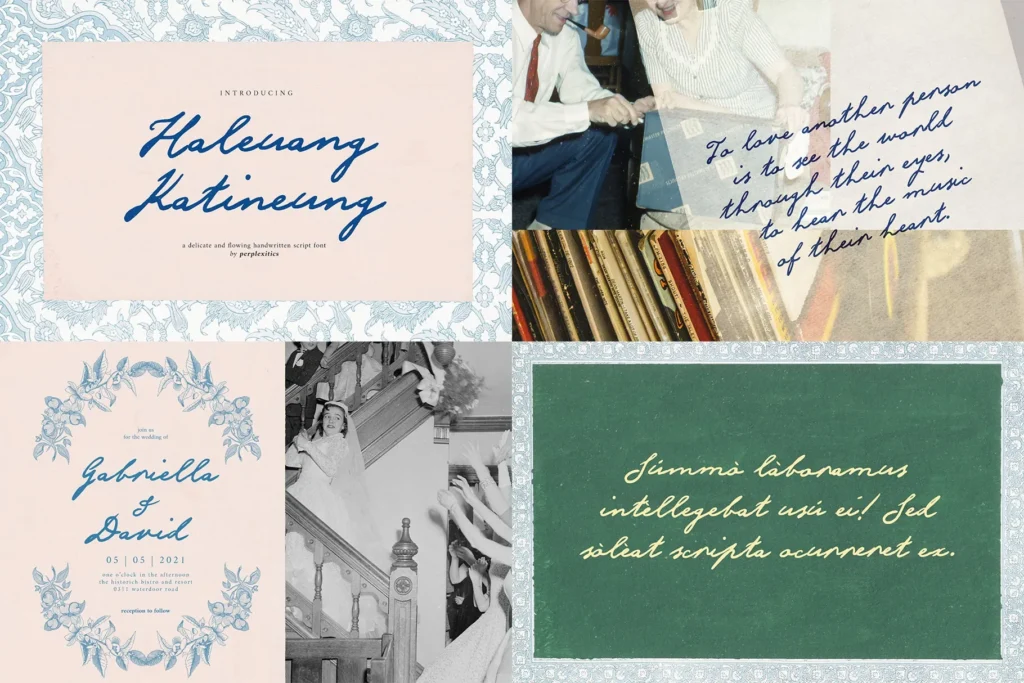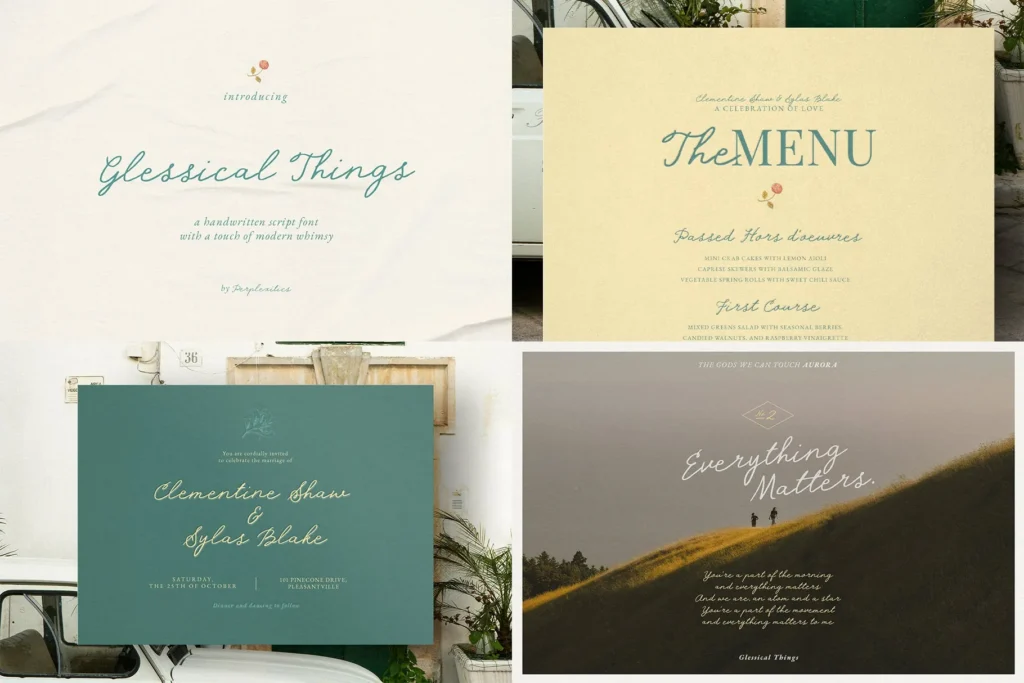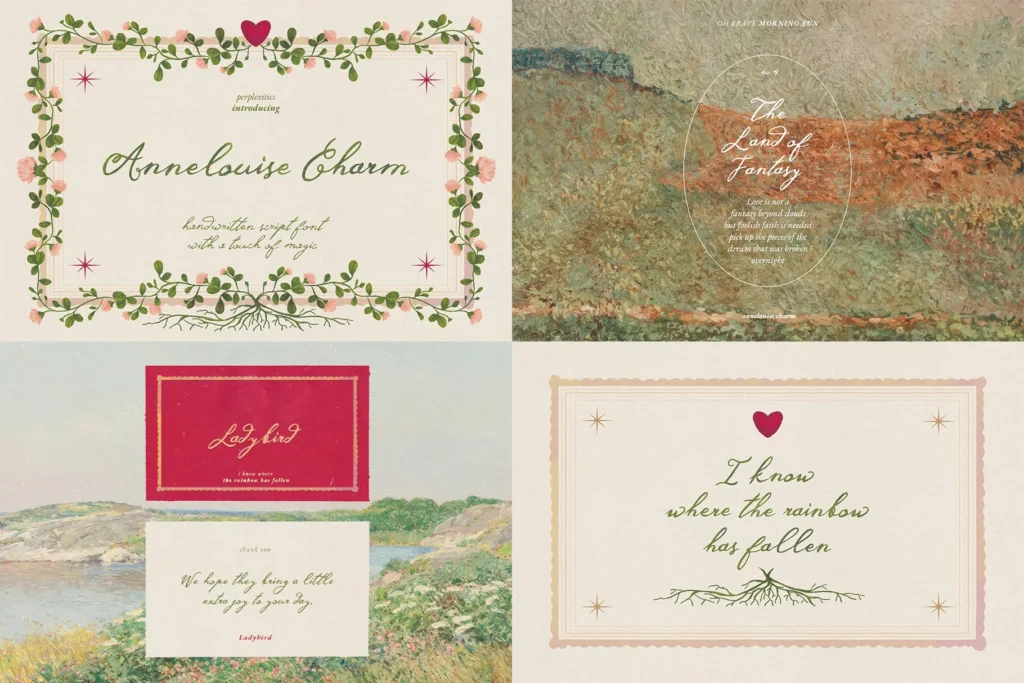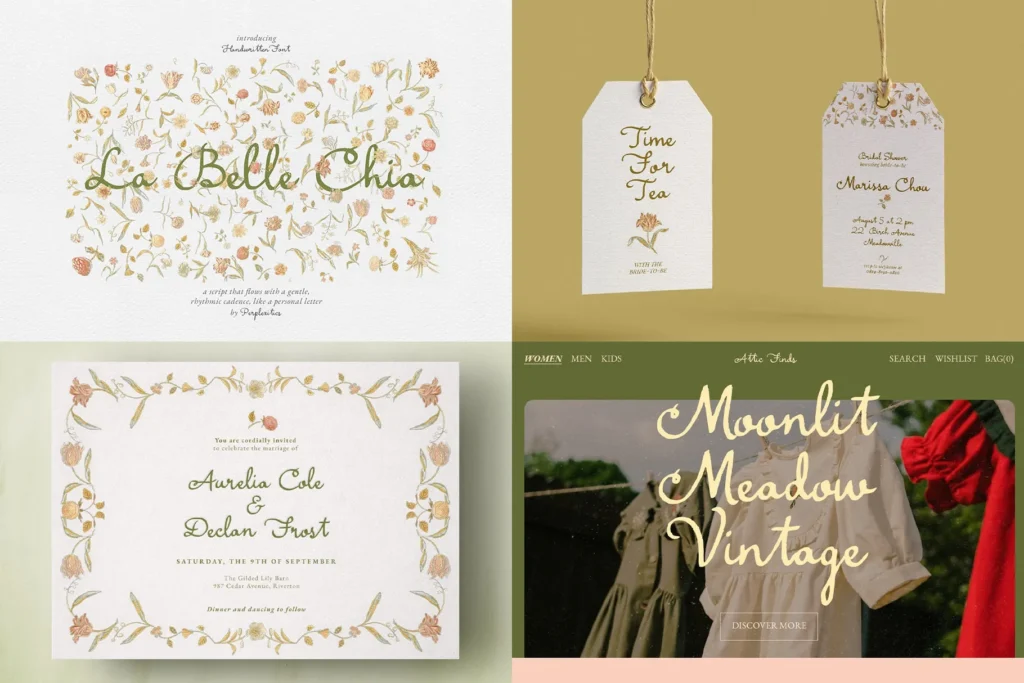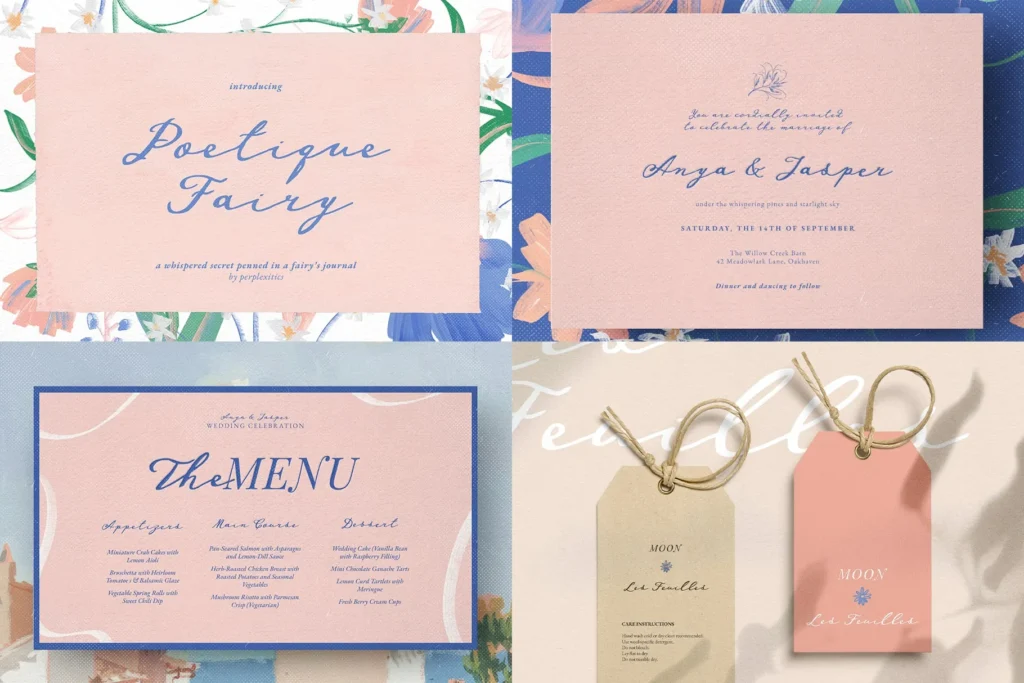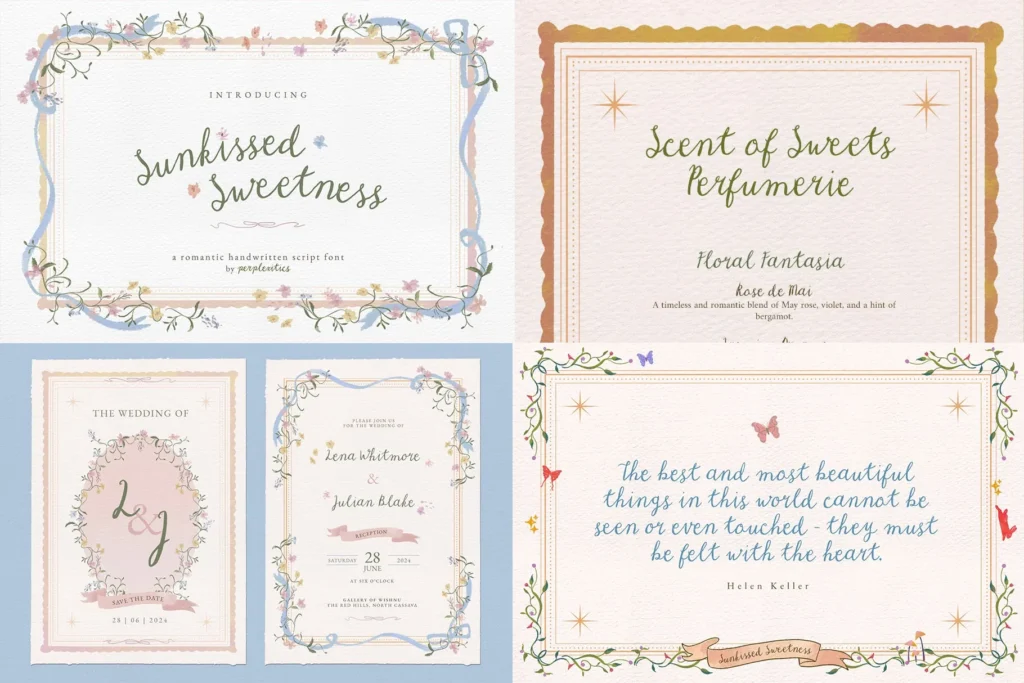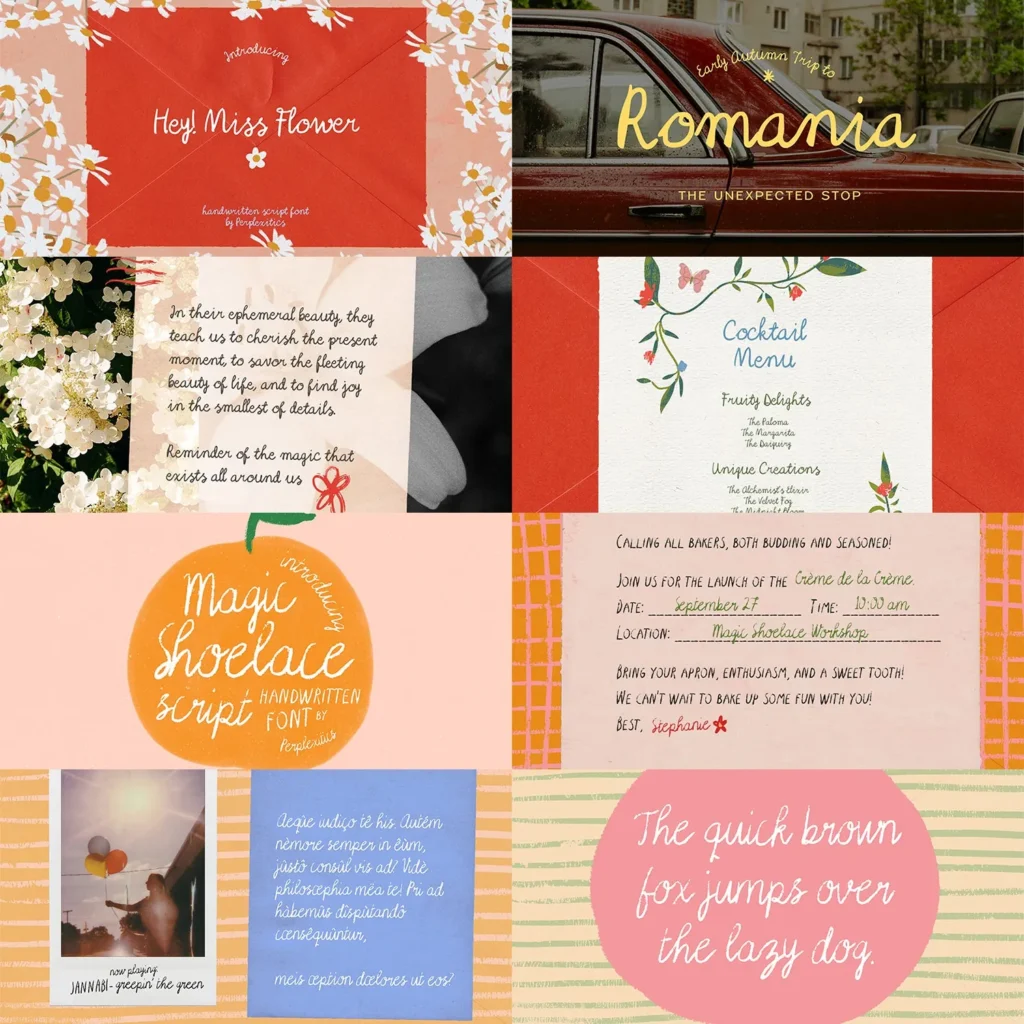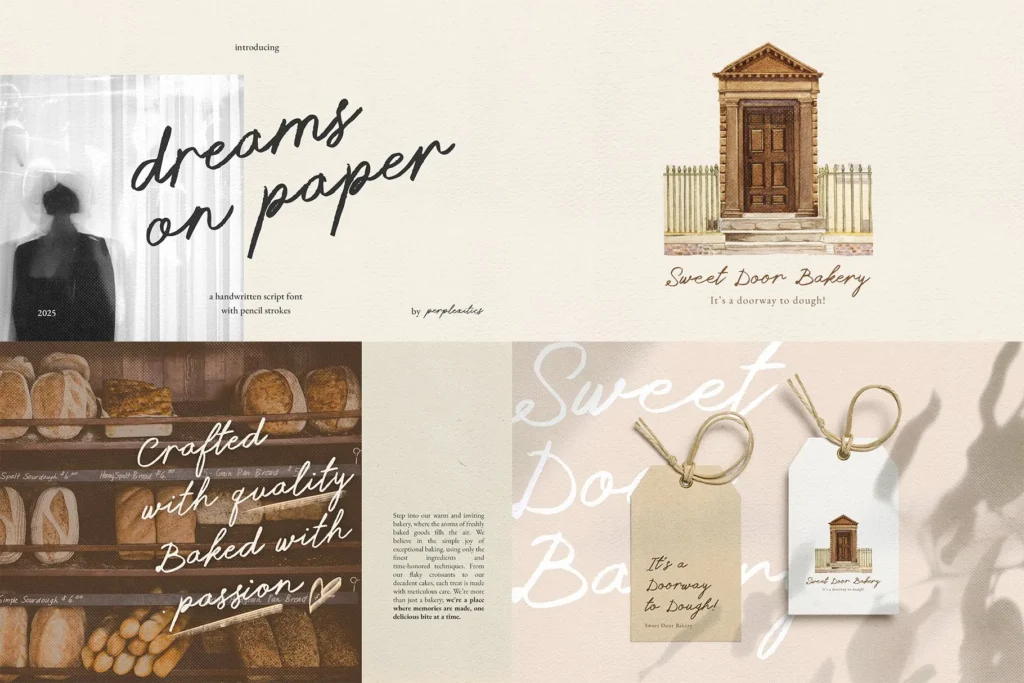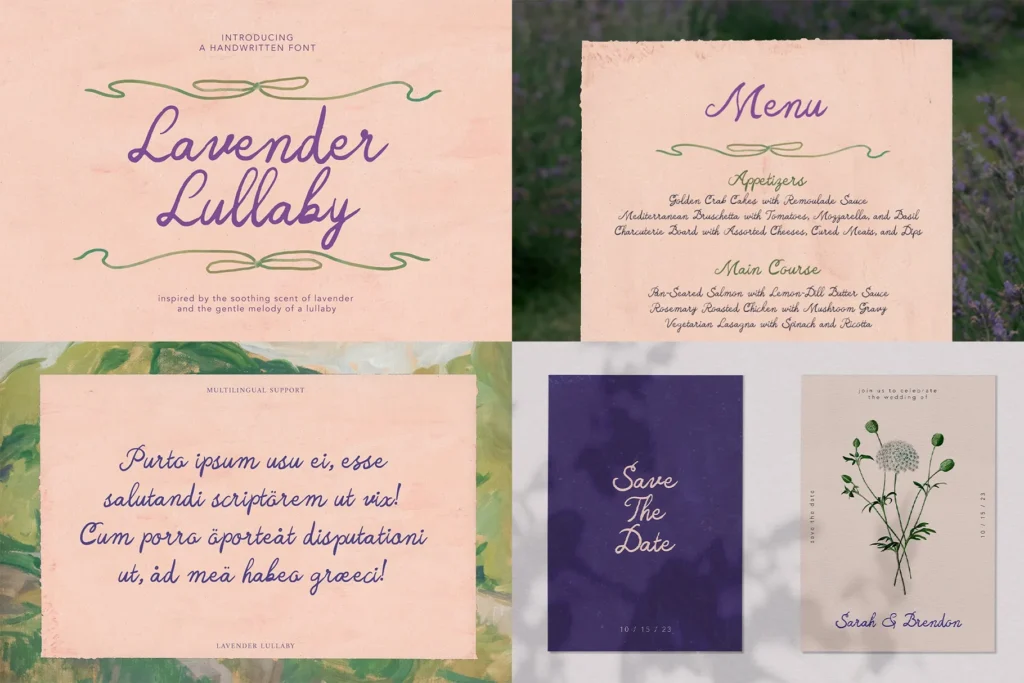
12 Handmade Script Font Bundle by Perplexitics
You’ll get a collection of 12 unique fonts, spread across 10 font families, each with its own unique vibe. Explore the different styles within the bundle and find the perfect script to convey your message with warmth and authenticity.